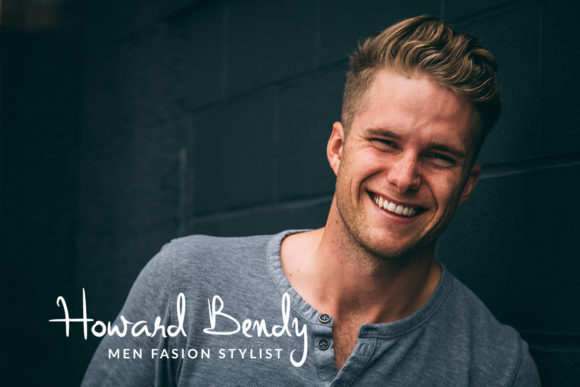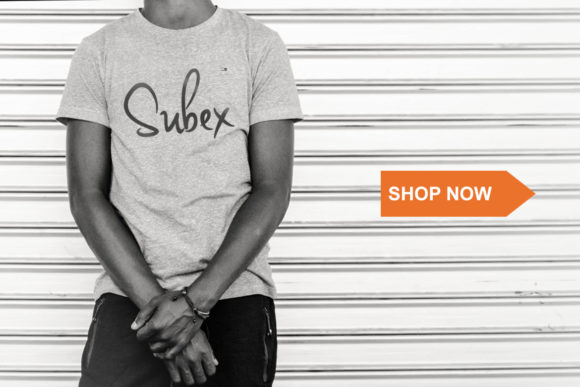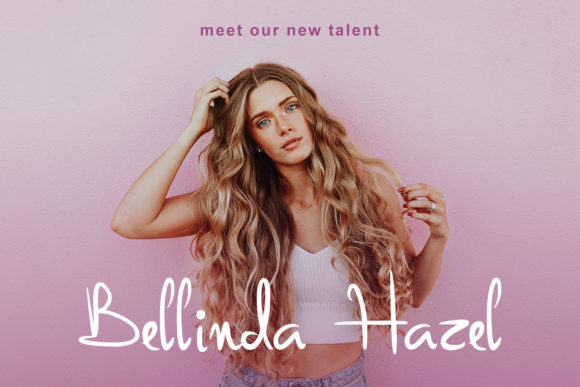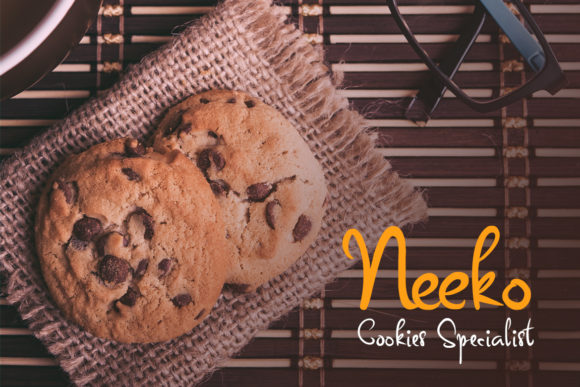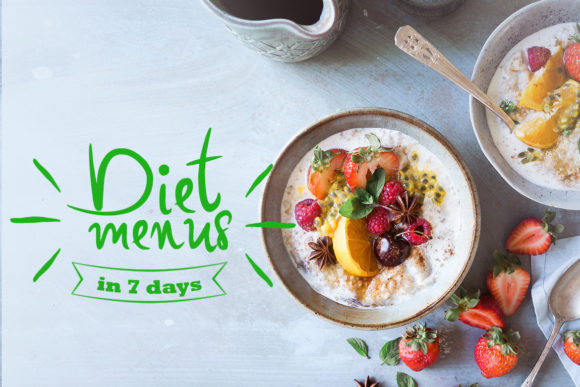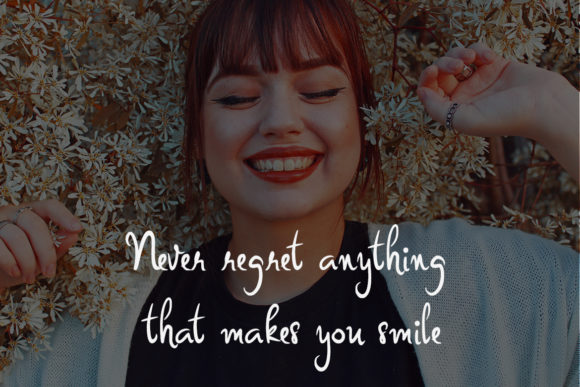
Introduction to Oureet Font Font
Fonts play a crucial role in design, and the Oureet Font font is a typeface that brings both character and versatility to any project. Whether you’re working on a branding project, a website, or a print design, the Oureet Font font offers a unique style that can elevate your work.
The Oureet is a simple handwritten font.
Its natural handwritten style is perfect for invitations, quotes, thank you cards, greeting cards, logos, and much more .
Key Features of Oureet Font Font
Why Choose Oureet Font Font?
The Oureet Font font is more than just a typeface – it’s a design tool that helps you communicate your message with style and clarity. Its unique character set and versatile design make it suitable for a wide range of applications, from elegant invitations to bold headlines.
With its carefully crafted letterforms and balanced proportions, the Oureet Font font ensures readability and visual appeal across all mediums.
What makes Oureet Font font special?
The Oureet Font font stands out with its unique design, exceptional readability, and versatility across various design applications.